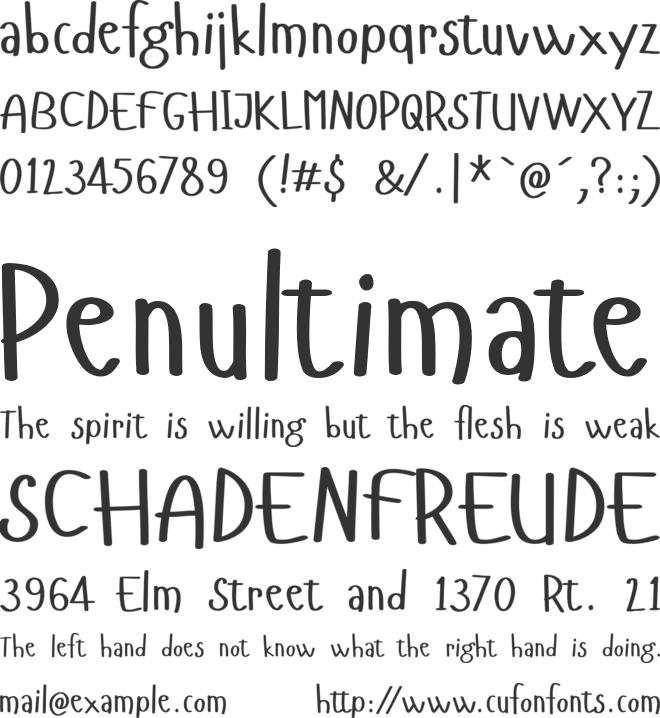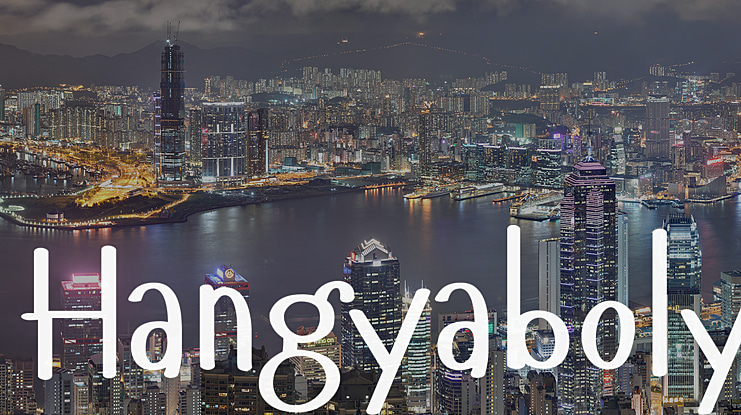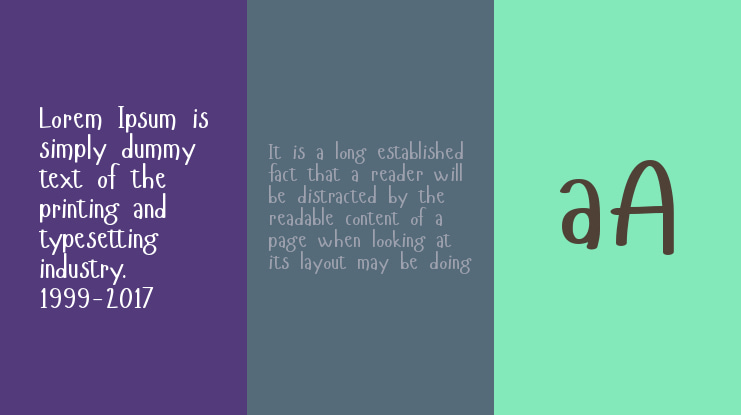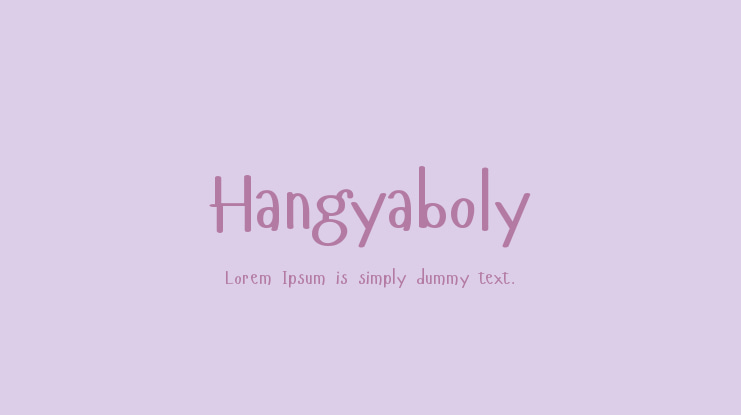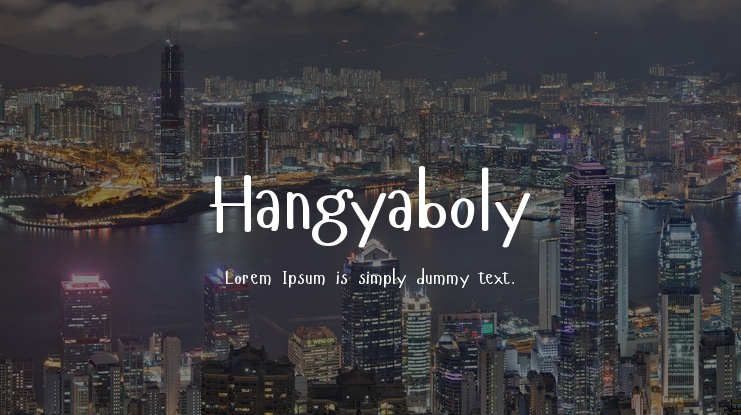
Hangyaboly Font
HANGYABOLY is a "freemouse" experimental cartoonish font, I drew the letters directly and spontaneously into the font software with the mouse (thats what I call "freemouse", after "freehand"). No scratch, no background tracing. It means Ant Hill, I named it after the "g" what reminded me an ant.
This is almost a full version, with Central and Western European accents and letters, plus Cyrillic!